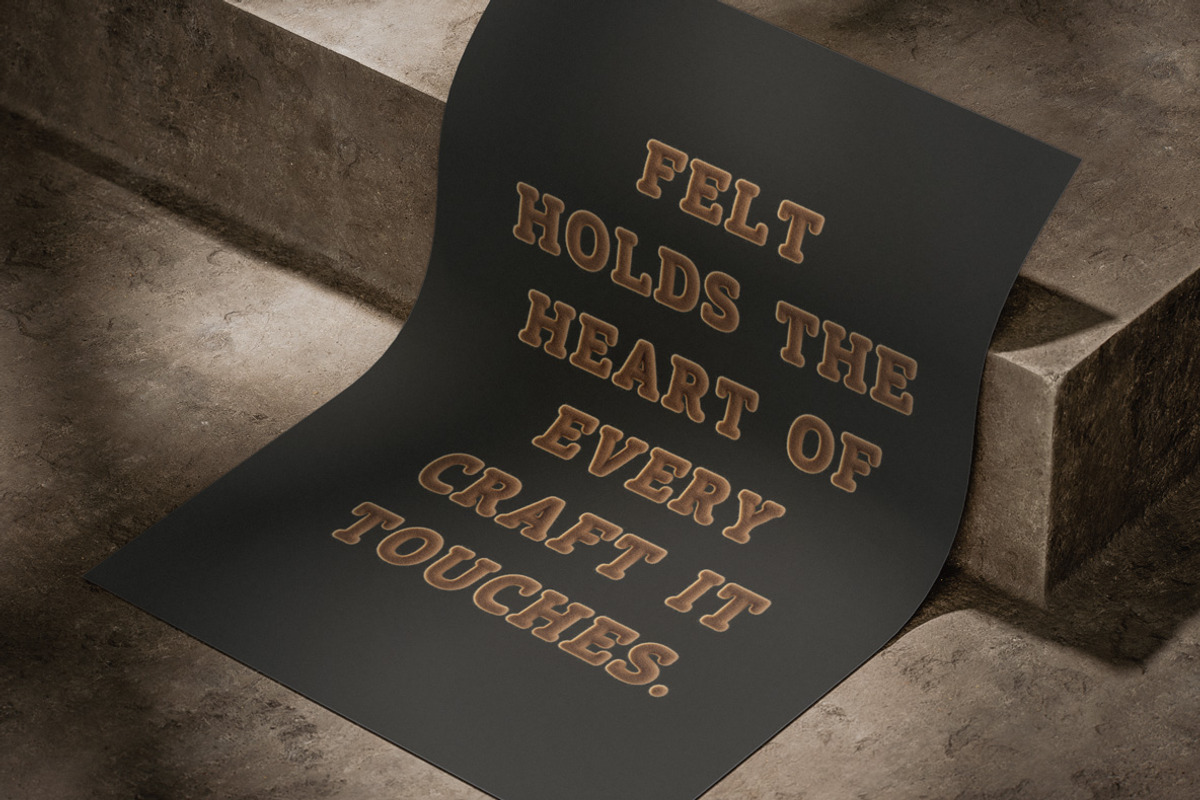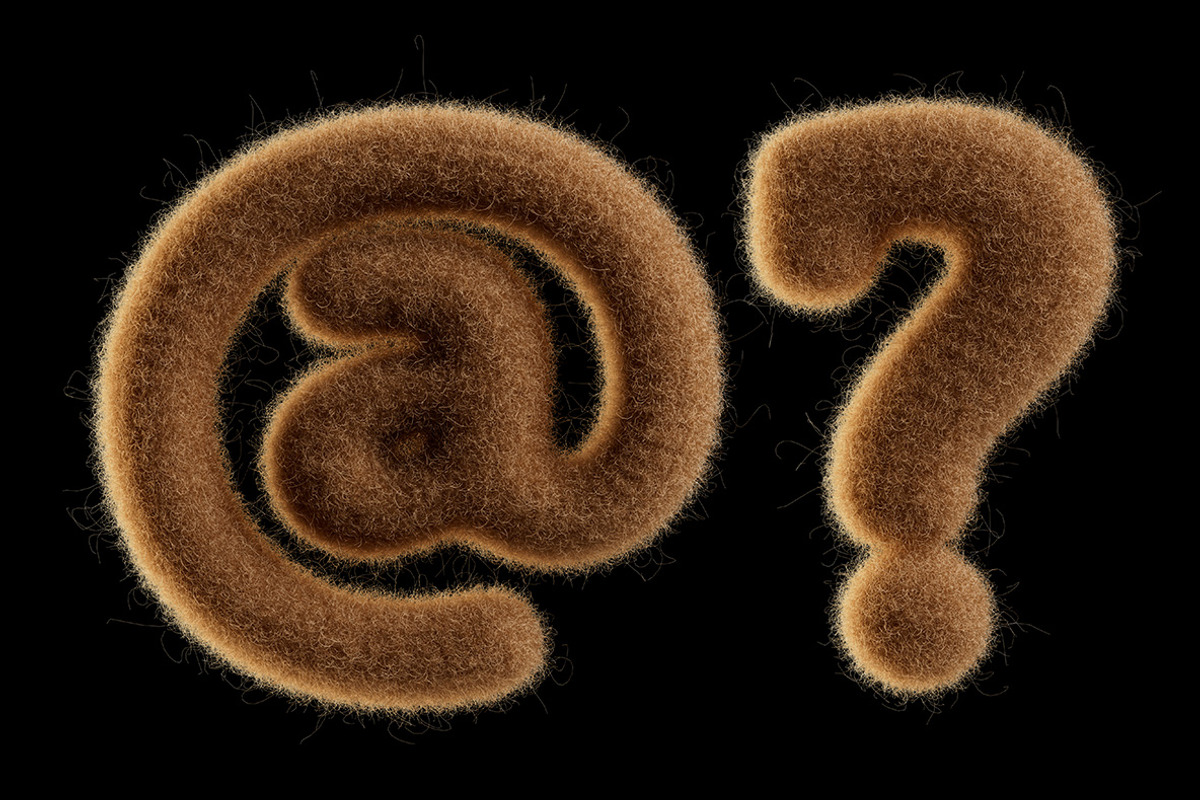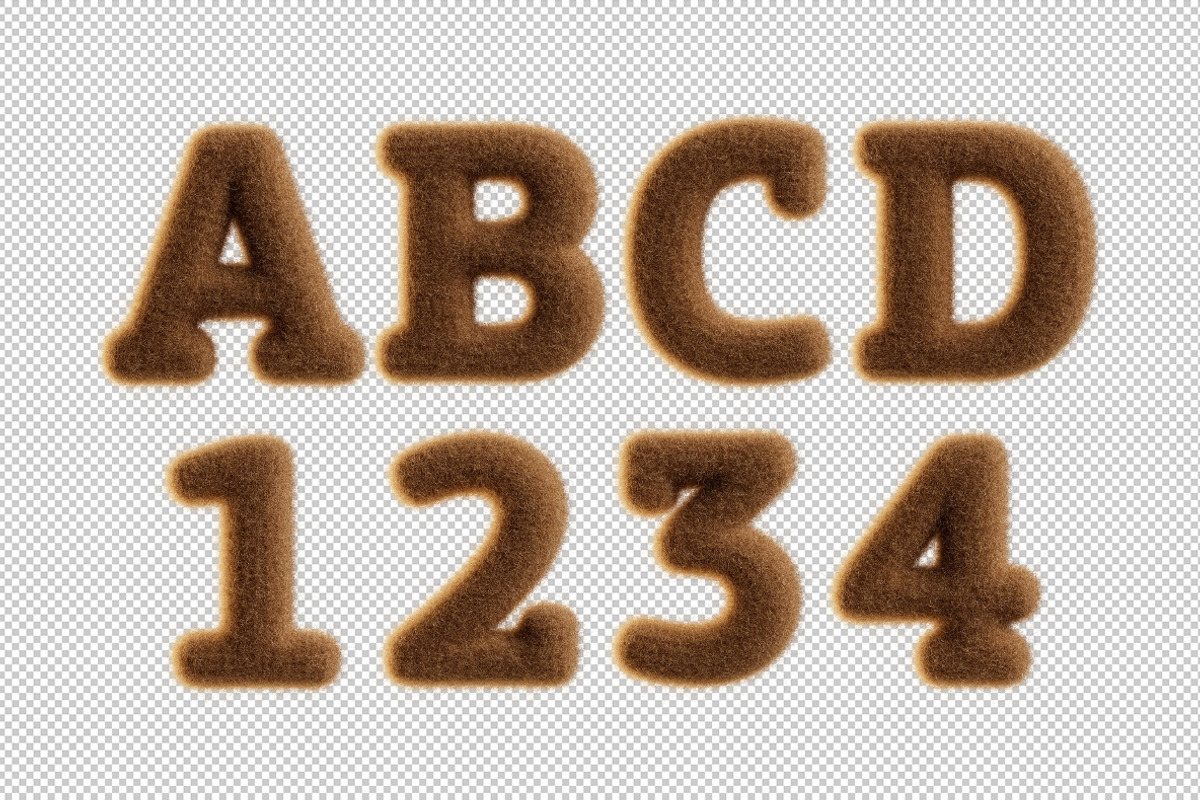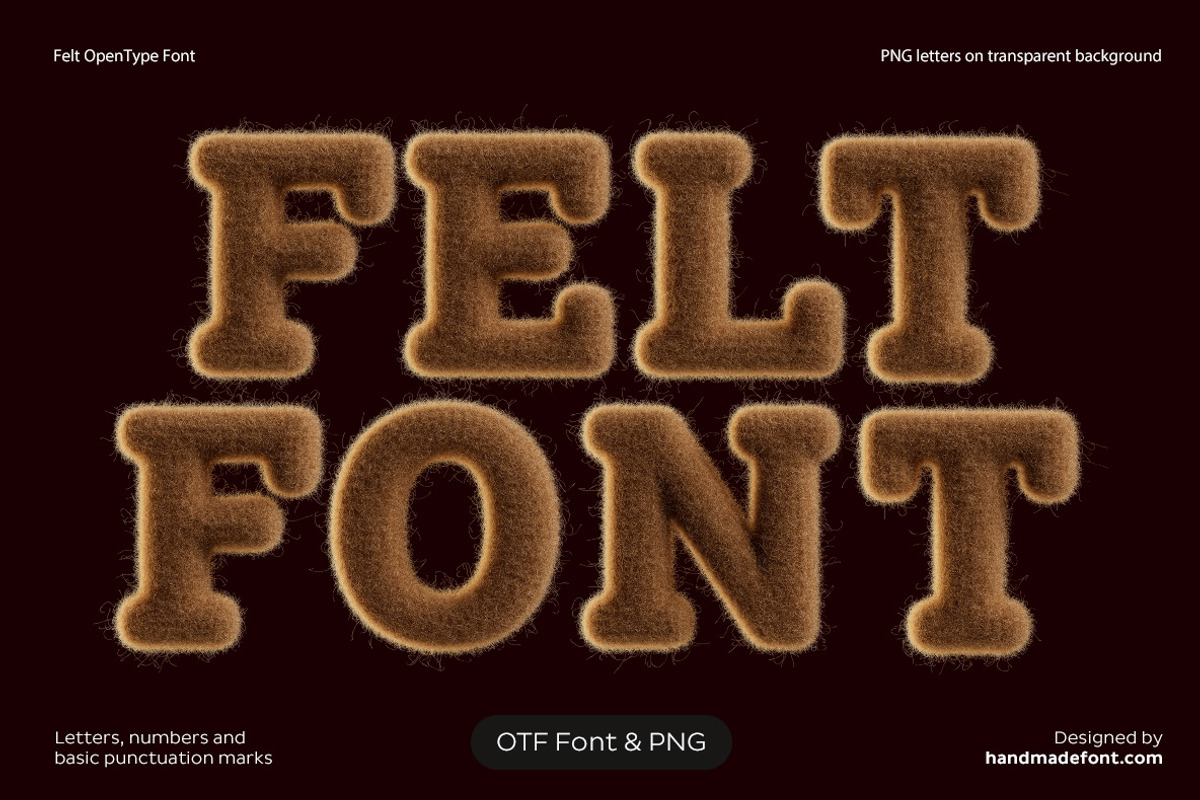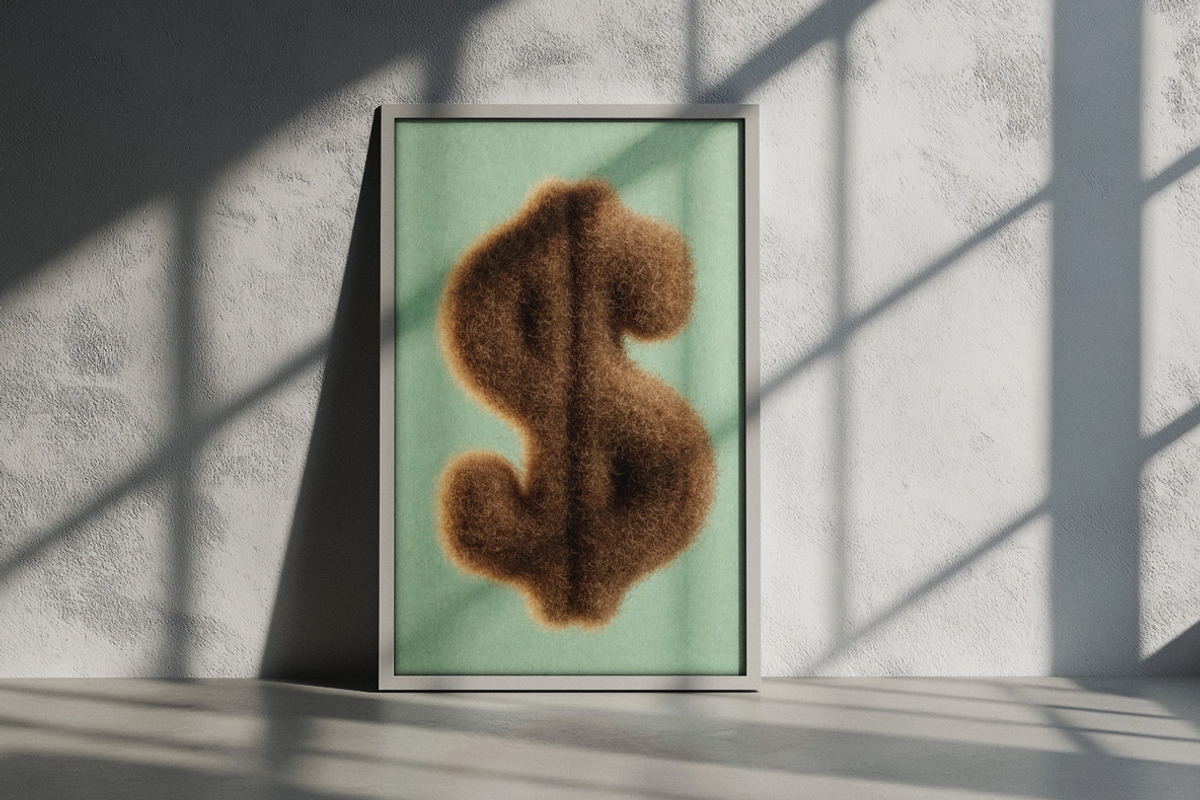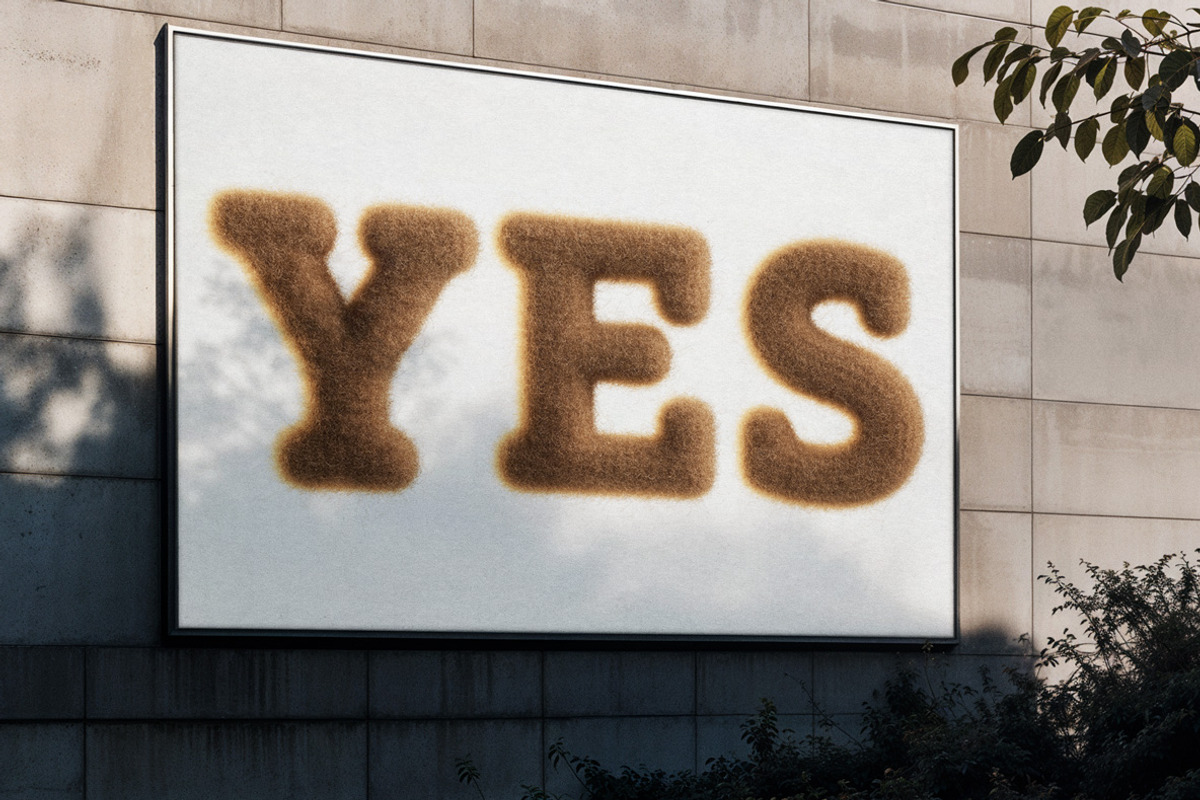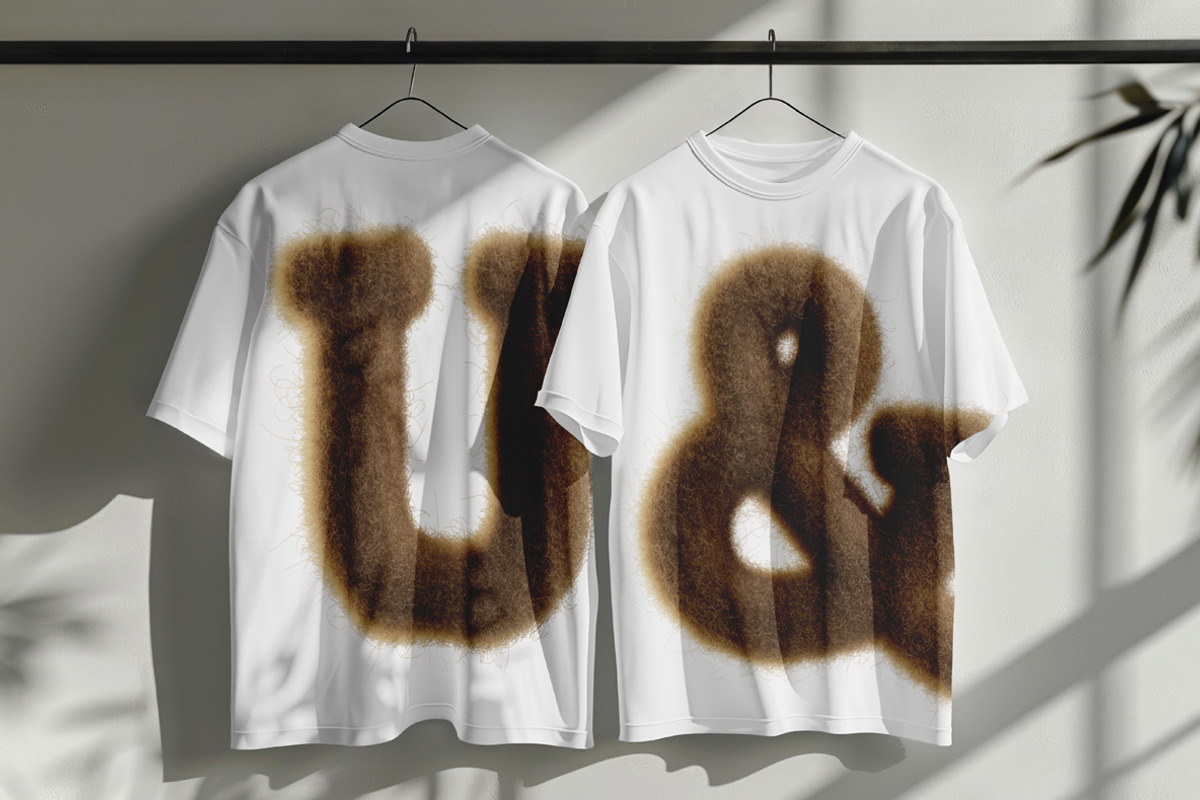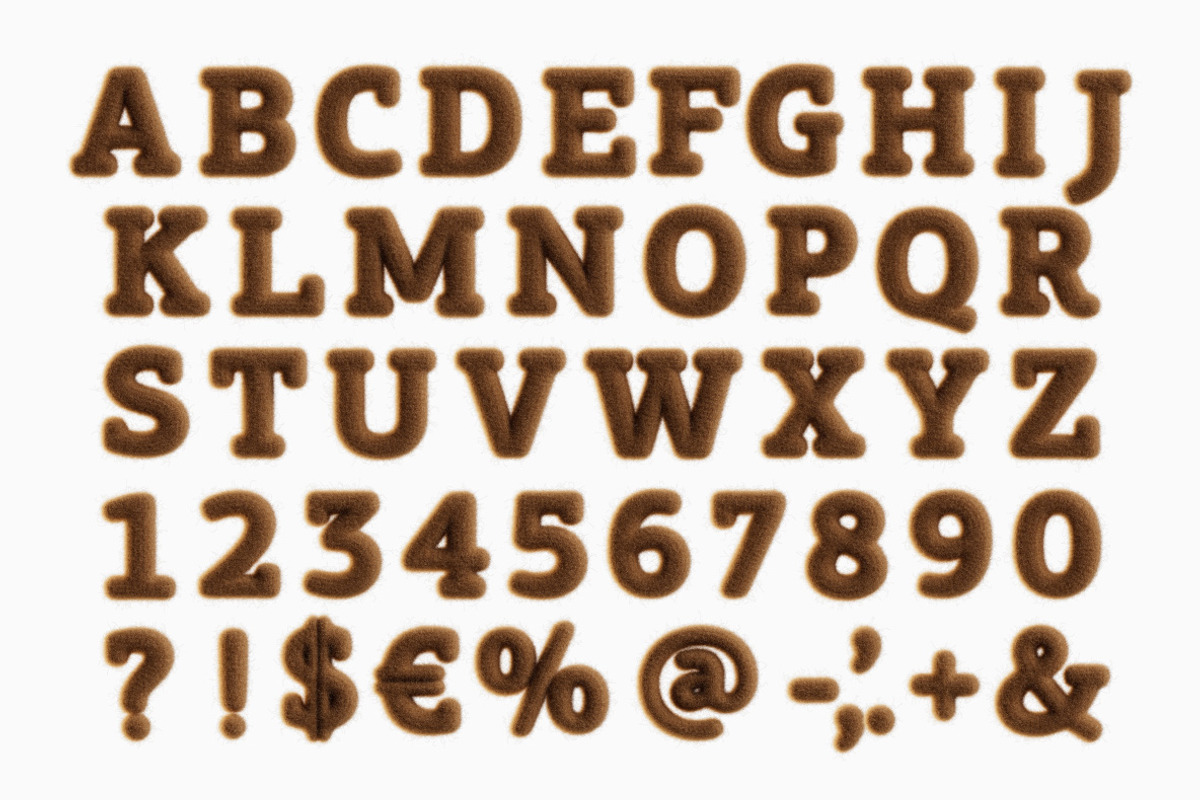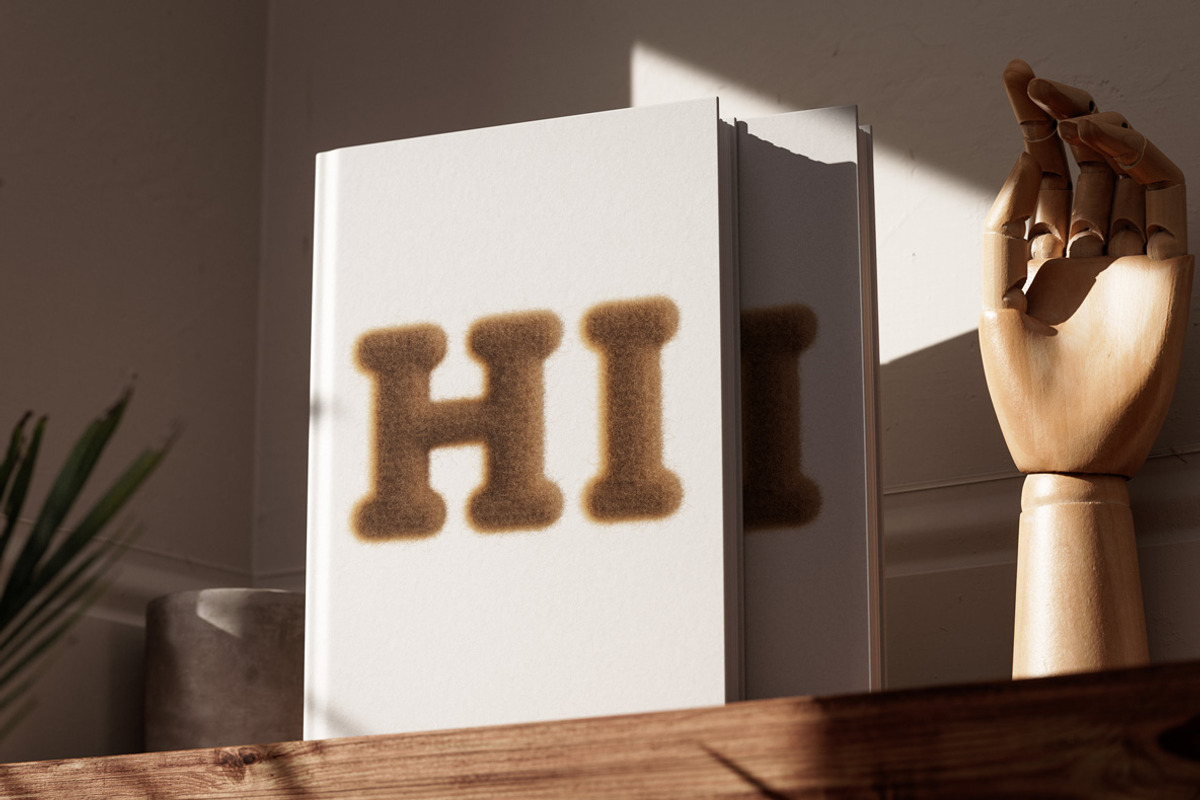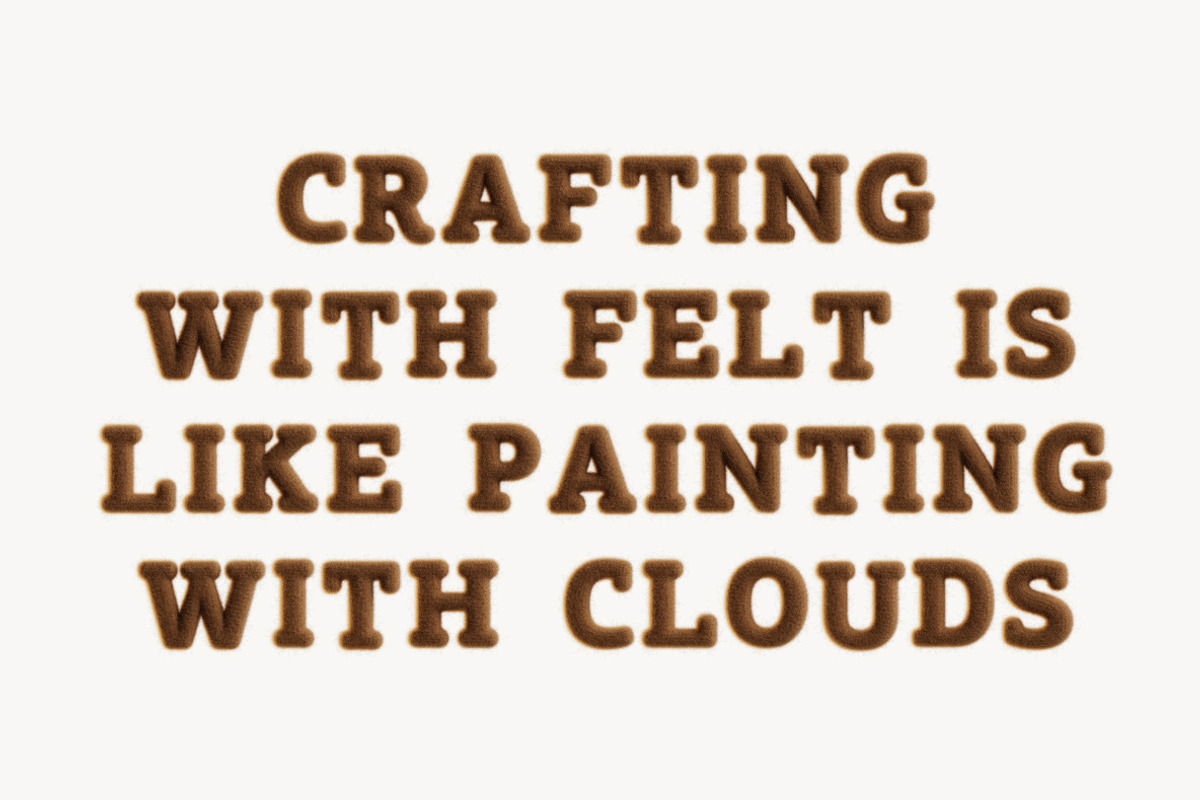
Felt Font
Fun and whimsical, the Felt Font brings a soft, cushiony charm to any design. Each letter feels like it’s crafted from plush felt, radiating warmth and comfort. With its puffy, velvety texture and smooth, cloudlike appearance, this felt-inspired font captures the essence of tactile delight. The warm brown hues paired with fine hair-like fibers mimic the authentic look of felt, giving the alphabet a gentle, airy vibe. Perfect for adding a touch of coziness, Felt Font transforms words into fluffy, textured art. Its plush, velvety lettering feels alive with softness, inviting you to imagine the gentle touch of felt. Whether for felt typography projects, logos, or playful designs, this unique felt alphabet exudes a velvety, handcrafted elegance that’s irresistibly charming.
- Letters : A B C D E F G H I J K L M N O P Q R S T U V W X Y Z
- Numbers : 0 1 2 3 4 5 6 7 8 9
- Others : ! ? - . ' $ € % & @